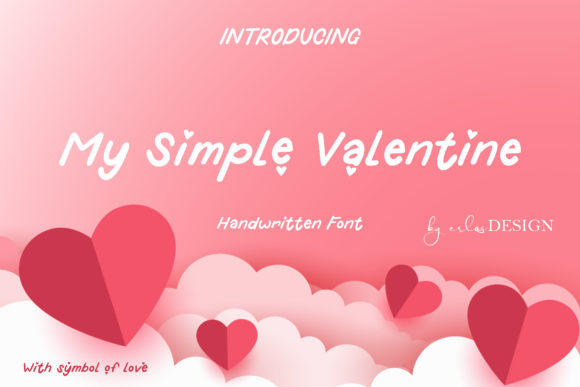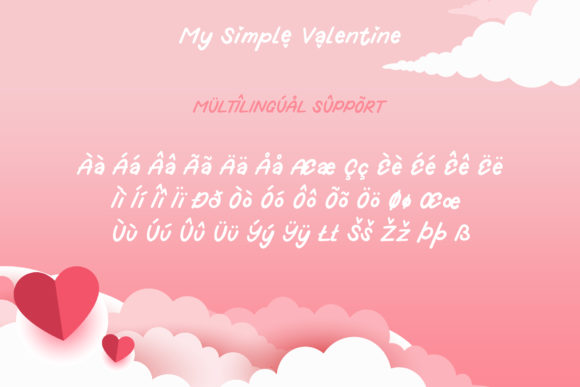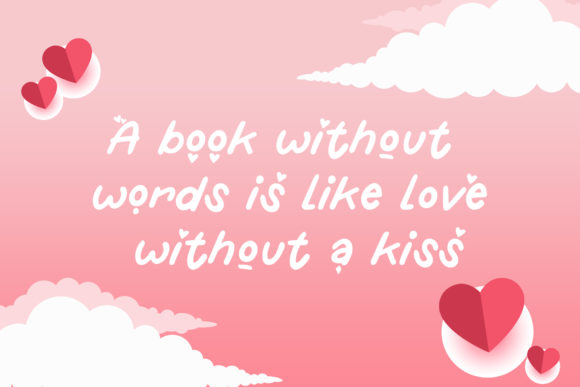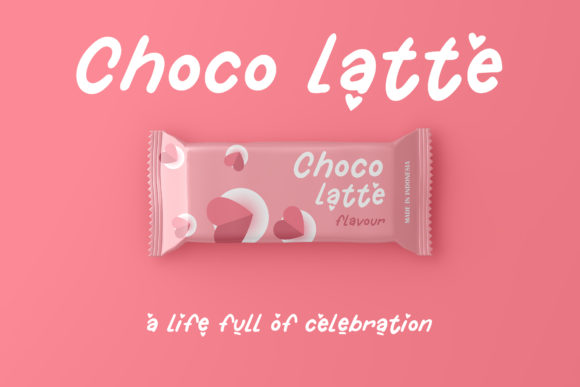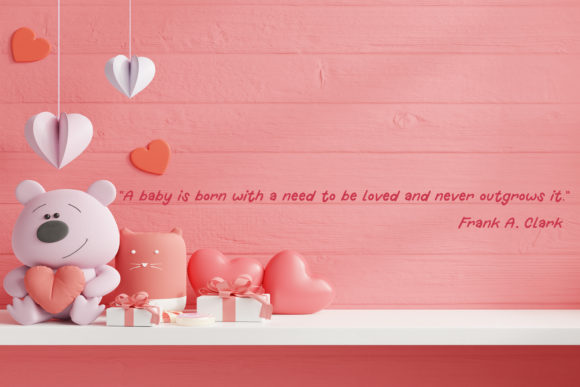
My Simple Valentine Font
About My Simple Valentine Font
My Simple Valentine is a sweet and friendly handwritten font. Its natural and unique style makes it incredibly fitting to a large pool of designs. The only limit is your imagination!